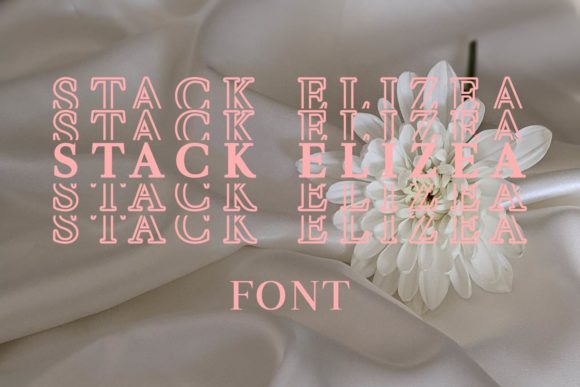
Unleash the Boundless Charm of Stack Elizea: A Retro Haven for Hand Embroidery
In a world where fonts blend into oblivion, Stack Elizea emerges as a beacon of vintage charm and timeless elegance. This display font, meticulously crafted by the visionary minds at Sintegra, transcends the ordinary, transporting you to an era of sophistication and understated beauty.
With its bold strokes and meticulously outlined characters, Stack Elizea commands attention without overwhelming. Its vintage flair adds a touch of nostalgia to any project, evoking memories of simpler times when artisanship and craftsmanship reigned supreme. Whether you're an ardent lover of hand embroidery, a budding graphic designer, or simply a creative soul seeking inspiration, Stack Elizea is your muse, your companion in artistic expression.
Immerse yourself in the versatility of Stack Elizea, a font that effortlessly adapts to your creative whims. Its bold presence lends itself perfectly to headlines, posters, and branding, while its intricate details elevate even the most mundane text, transforming it into a work of art.
Embark on a creative journey with Stack Elizea, a font that ignites your imagination and unlocks new realms of possibility. Its vintage aesthetic breathes life into your designs, capturing the essence of nostalgia with a contemporary twist. Let Stack Elizea be your guiding light, illuminating your creative path and leaving an indelible mark on the world of hand embroidery and beyond.